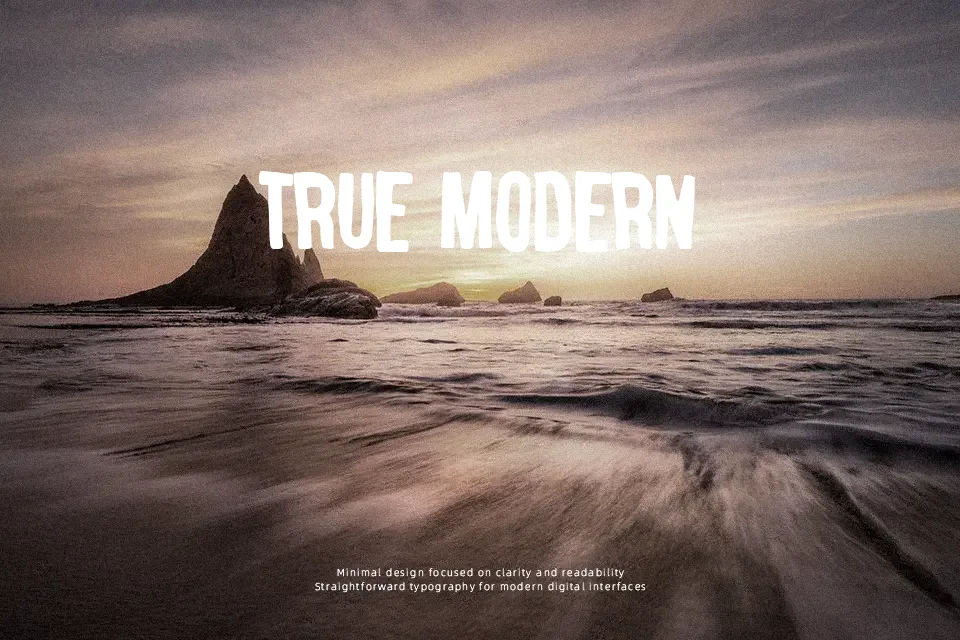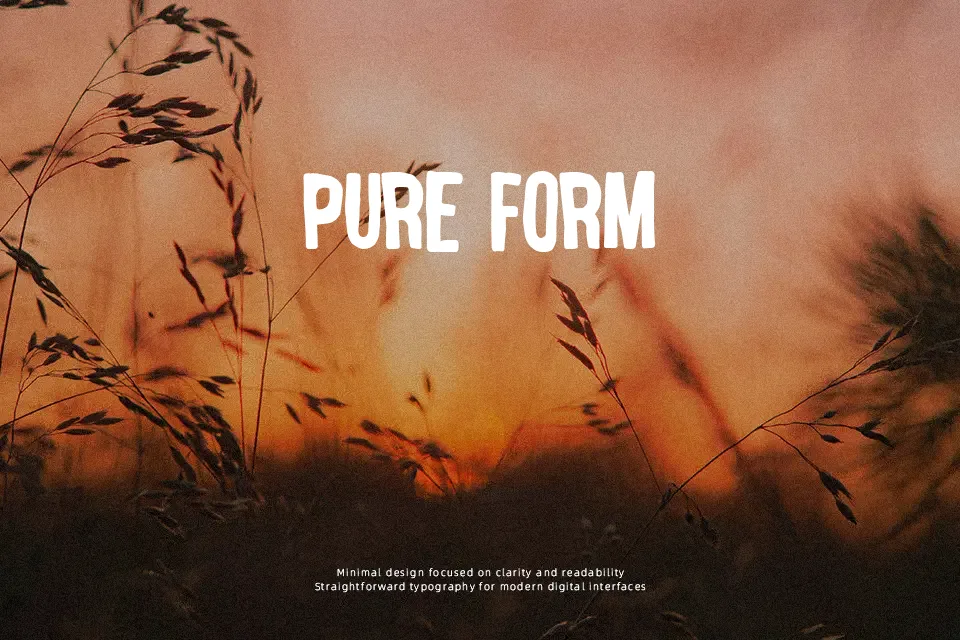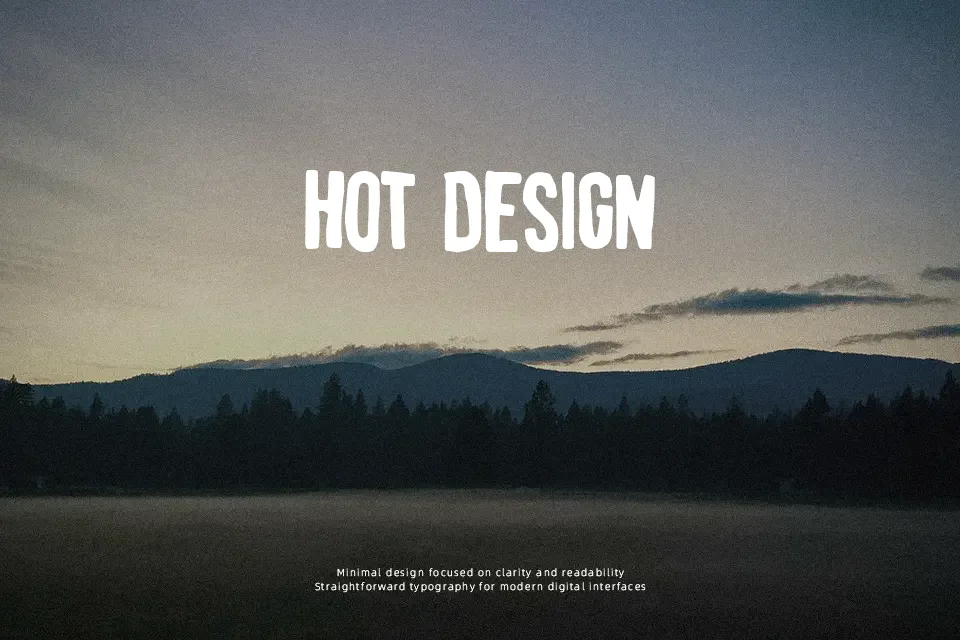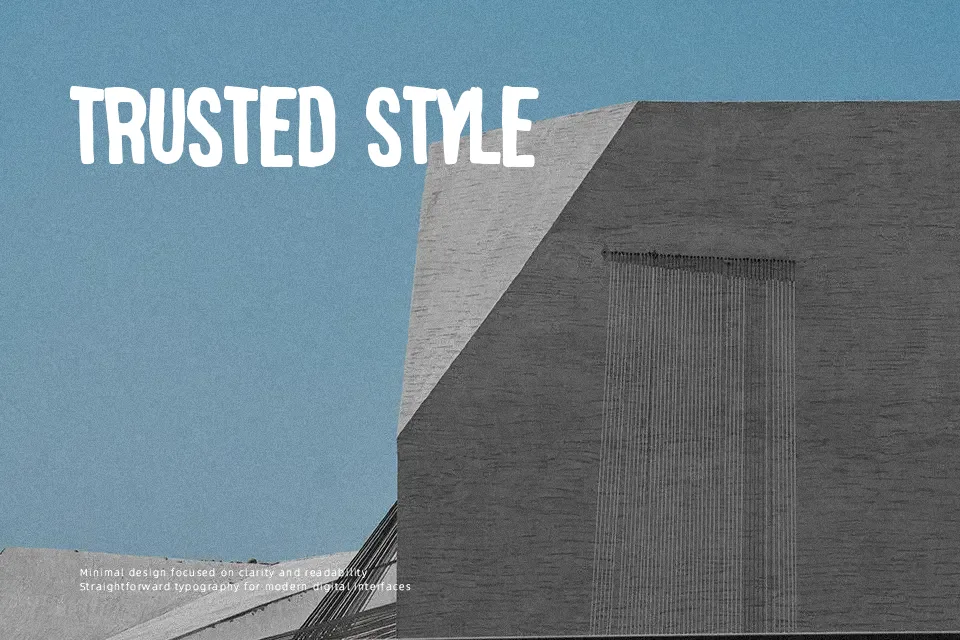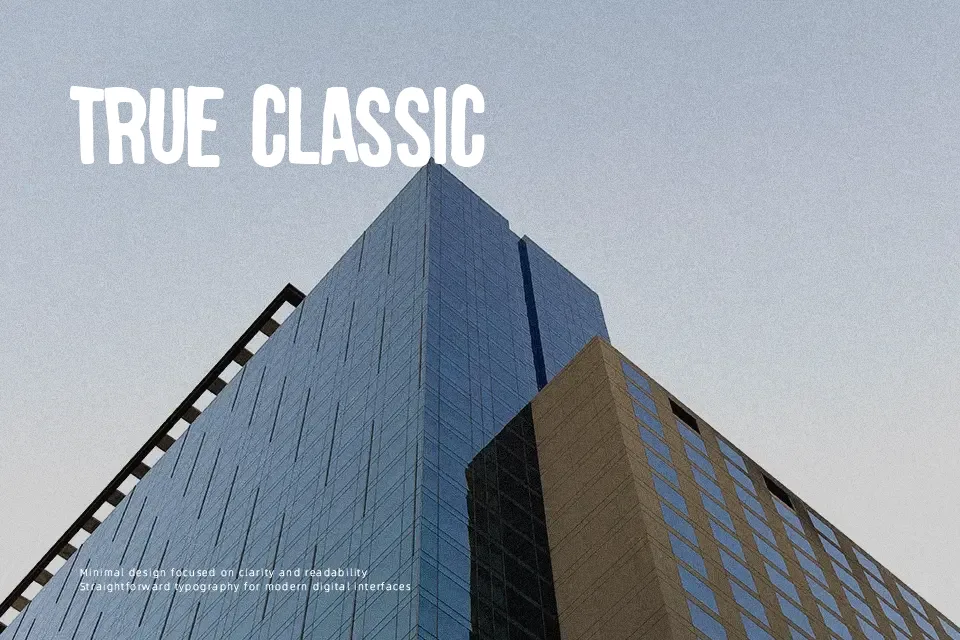
Camello De Spit Font
Camello De Spit is a narrow, condensed display typeface with irregular strokes, rough contours, and tight spacing that gives text a scraped, hand-painted look. The letters sit tall with compact counters, so words stack nicely in short headlines but can feel dense in long lines. Its mood leans raw and urban rather than clean or corporate, making it useful for gig posters, streetwear labels, underground event flyers, or bold social graphics that need visible texture and attitude. It can overpower minimalist layouts and quickly becomes tiring in paragraphs, so it works best in short bursts and big sizes. If you like distressed display fonts but want something more compressed and aggressive than typical brush scripts, this one fits that niche.
Grungy music or gig posters
Streetwear or edgy branding marks
Bold titles on social media graphics
Flyers for underground or alternative events
Body text or long paragraphs
Formal corporate or editorial layouts
Small-size UI labels or navigation text
Clean minimalist branding systems
Perfect for branding, headline, and music, with a artistic and condensed style.